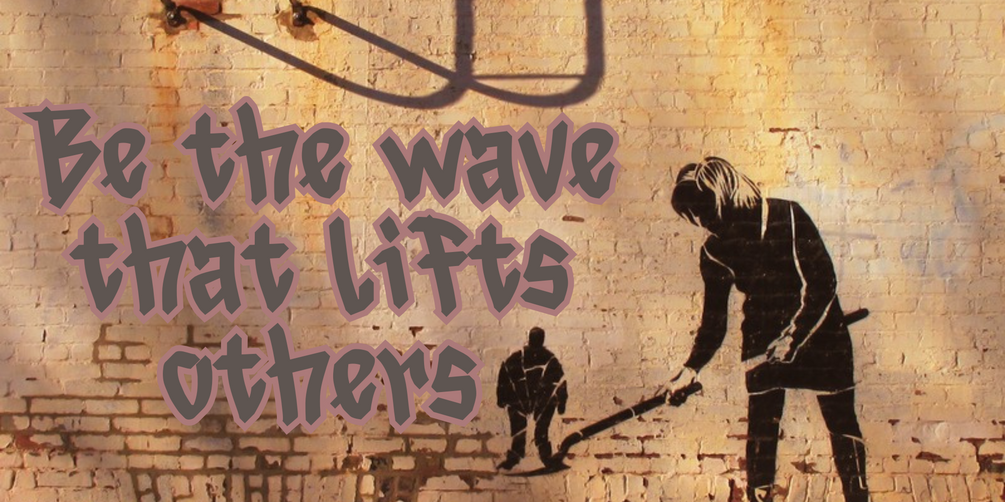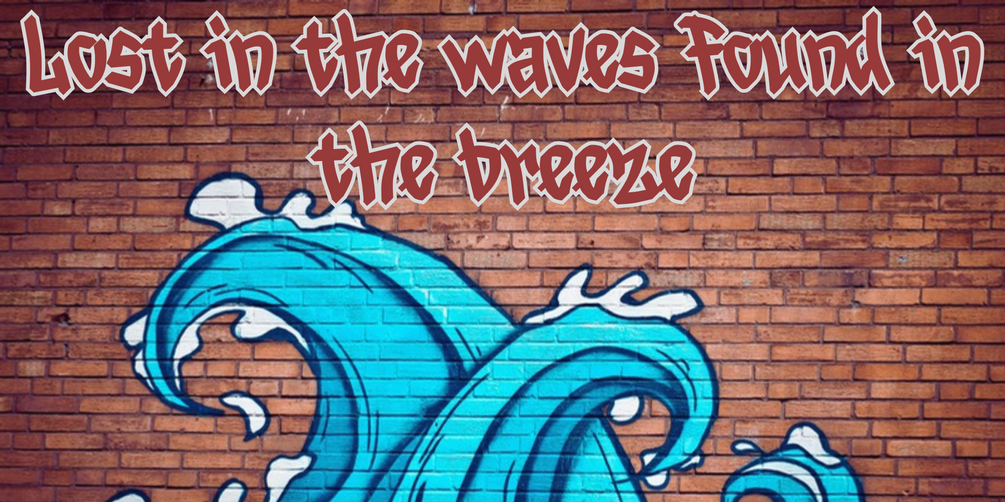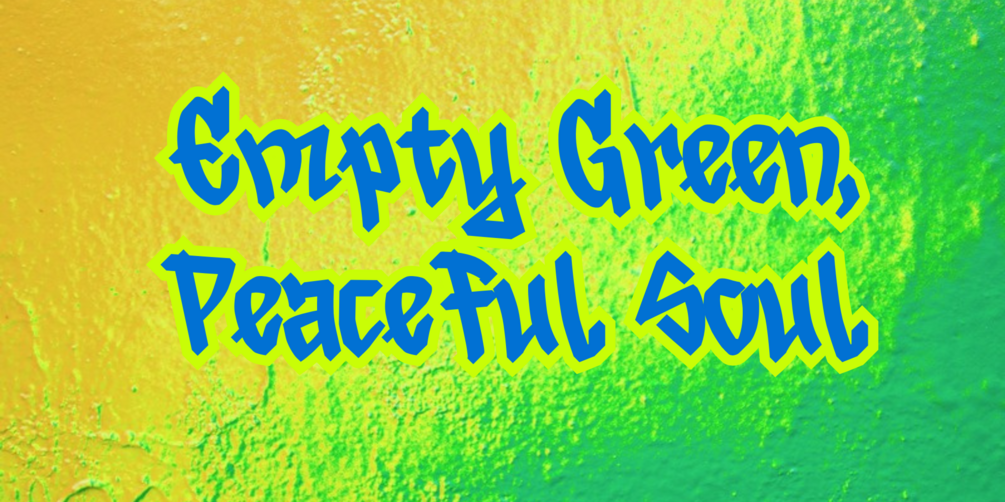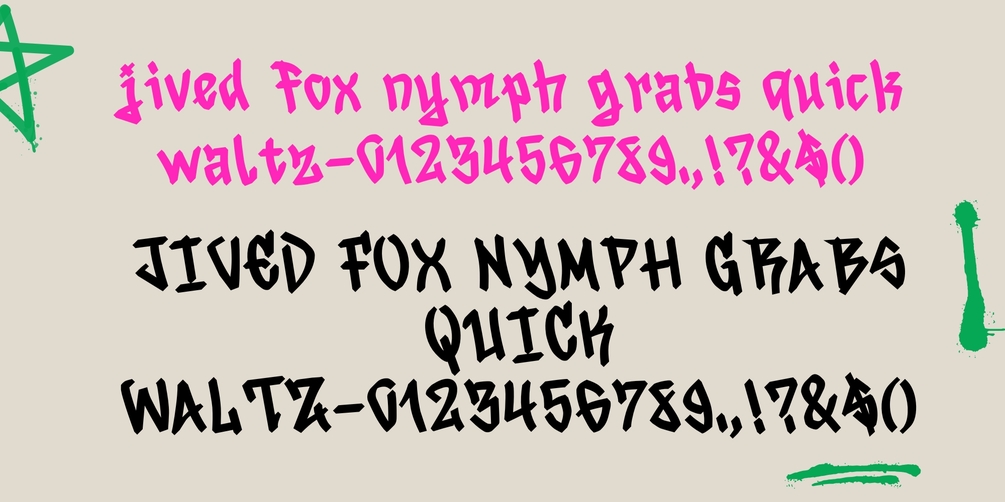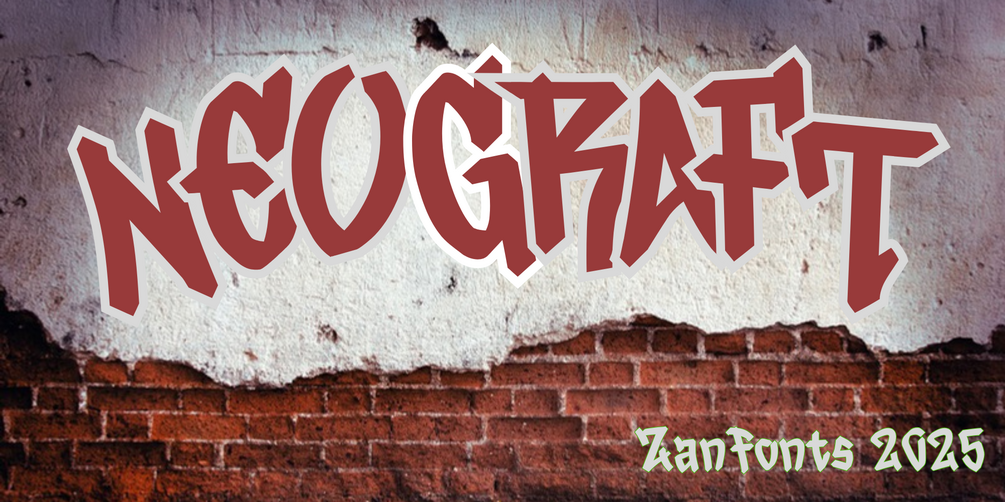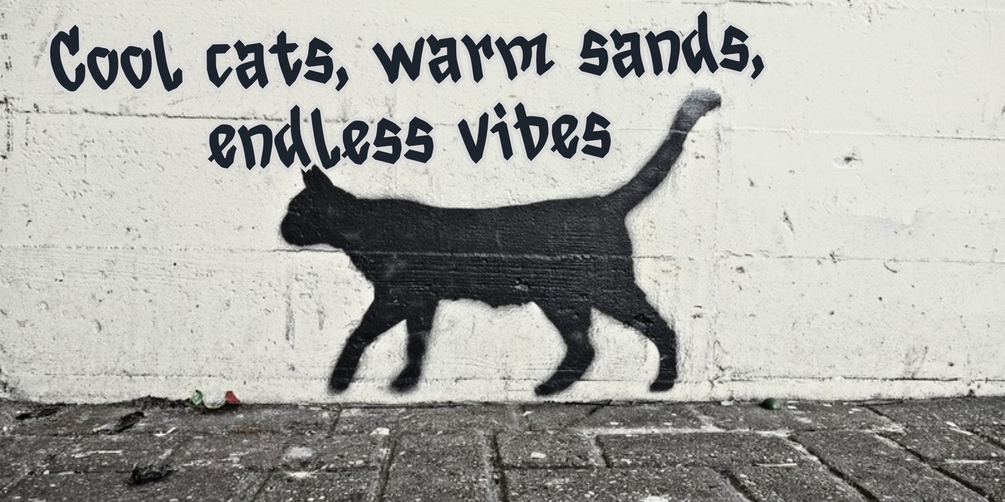
NEOGRAFT
NeoGraft – A Bold Graffiti Typeface with Urban Attitude
Unleash creativity with NeoGraft, a graffiti-inspired typeface that captures the raw energy of street art and urban culture. Designed for designers and brands looking for an edgy, expressive, and rebellious font, NeoGraft features dynamic letterforms with fluid strokes, giving your projects a bold, handcrafted feel.
Whether you’re designing posters, album covers, streetwear branding, social media graphics, or urban-themed merchandise, NeoGraft brings authenticity and attitude to the table. Its unique blend of spray-paint aesthetics, bold brush strokes, and rough edges makes it perfect for projects that demand attention and creativity.